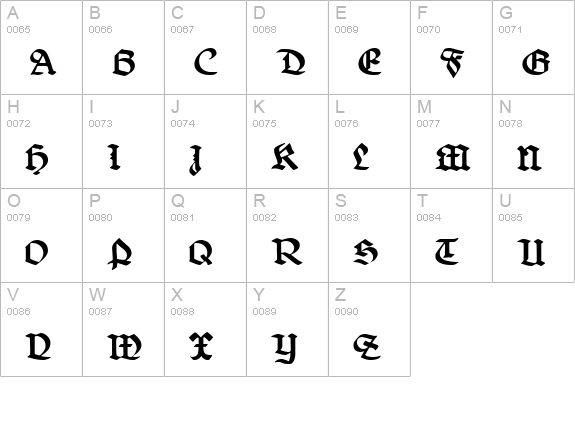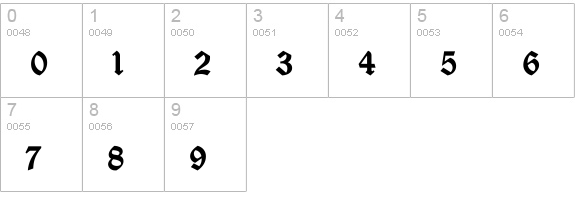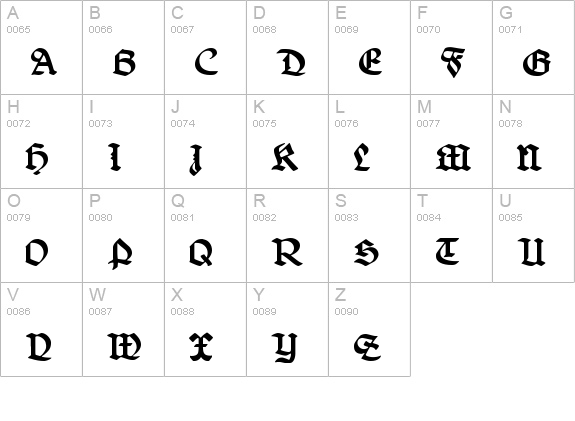
Belwe Gotisch Font Details
Belwe Gotisch is a stunning and elegant font that exudes a sense of vintage charm and sophistication. Its elaborate, Gothic-inspired letterforms are intricately designed, making it perfect for adding a touch of old-world grandeur to your projects. The sharp serifs and unique flourishes give Belwe Gotisch a distinctive look that is both timeless and eye-catching. What's even better is that Belwe Gotisch is available for free download at FontsMarket.com. This means you can easily access and use this beautiful font in your designs without any cost. Whether you're working on invitations, posters, logos, or any other creative project, Belwe Gotisch is sure to elevate your work with its classic appeal. Don't miss out on the opportunity to enhance your designs with this exquisite font – download Belwe Gotisch for free today at FontsMarket.com!